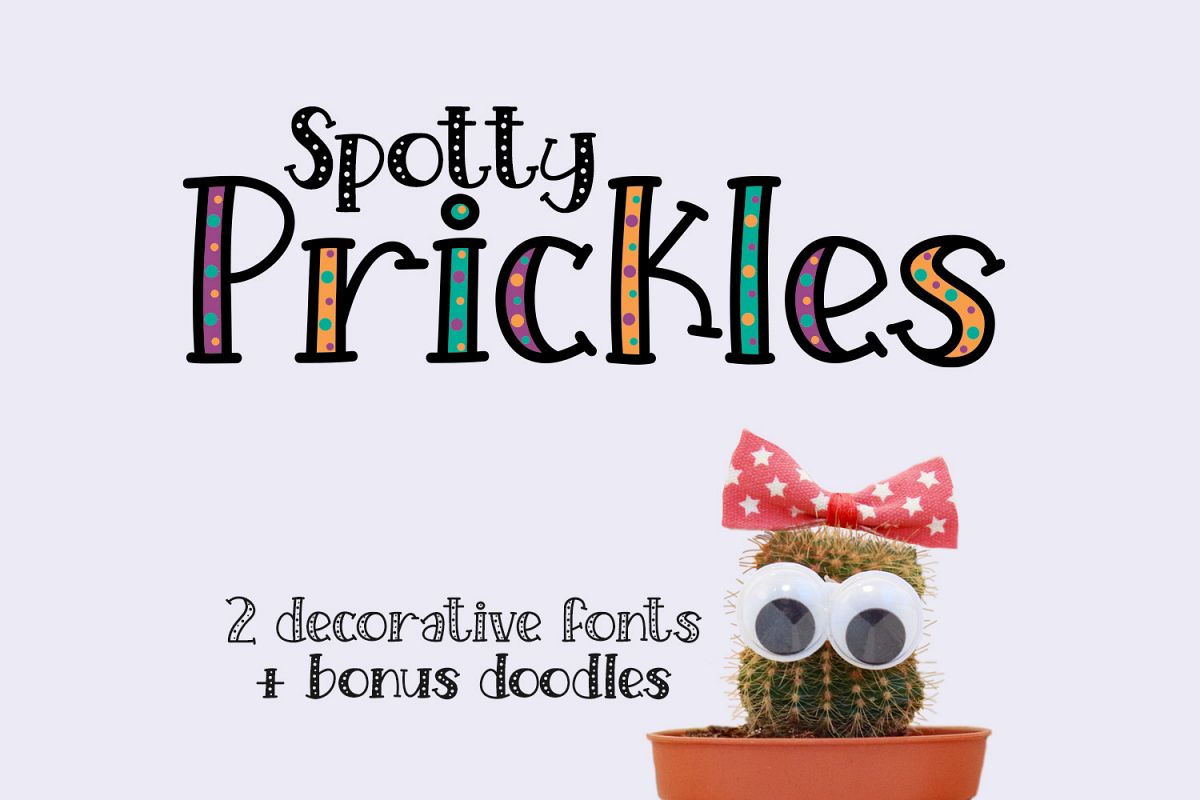
Spotty Prickles - a fun handwritten serif font with bubbly spots - both hollow and filled!
Includes a bonus doodle font with 52 doodles for every occasion.